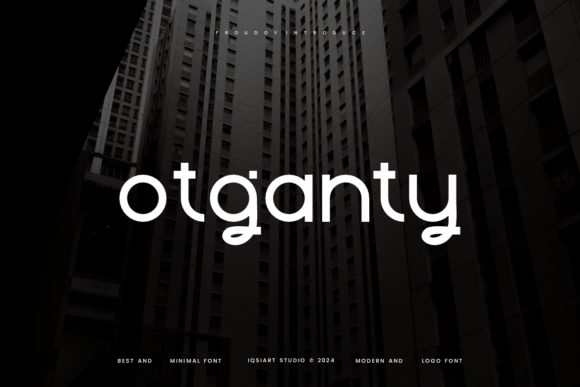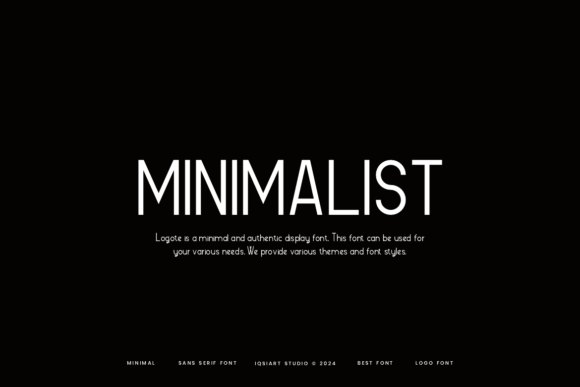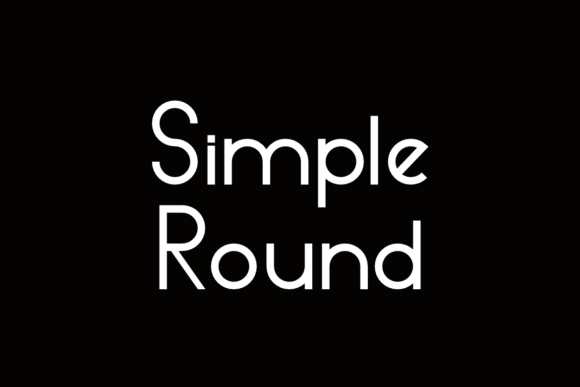
Otganty Font: Modern Minimalist Sans Serif for Logo Design
About the Otganty Font
Meet Otganty Font, a stunning font that brings a touch of elegance and professionalism to any design. Otganty is a modern logo font designed to be bold and stylish. Its clean lines and smooth curves make it perfect for creating eye-catching logos. This font has a contemporary feel, ideal for brands looking for a sleek and professional look.
Otganty’s strong, geometric forms make it ideal for headlines, short impactful statements, and branding applications where a bold, memorable presence is desired. It excels in logo design, short-form marketing materials, and packaging where visual impact is key. However, its weight and character spacing make it less suitable for body text or extended reading.
Pairing Otganty with a clean sans-serif like Lato for body text creates excellent contrast and readability. For a more luxurious feel, a delicate script font such as Great Vibes could complement its modern edge, while a neutral serif like Merriweather offers a sophisticated counterpoint.
Otganty projects a confident, modern, and slightly assertive personality. It’s a good choice for brands aiming for a sophisticated yet approachable image, suitable for industries such as technology, finance, or high-end products.
Otganty Font Usage Examples
Otganty Font Example